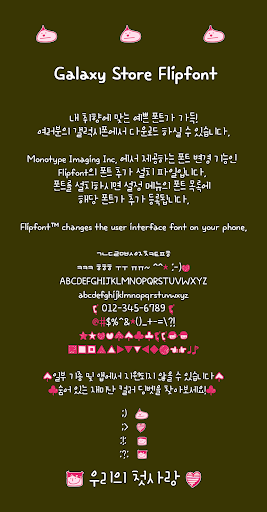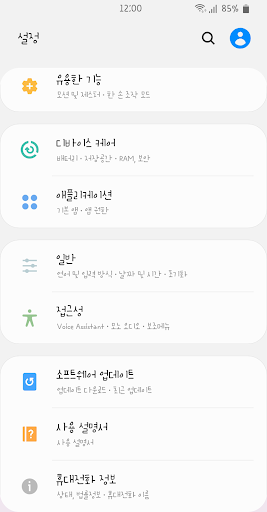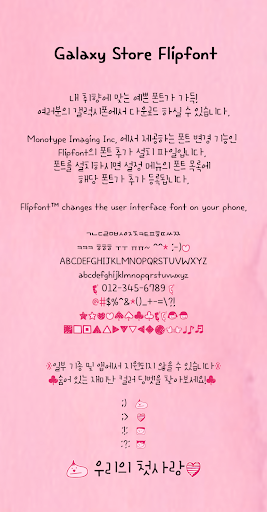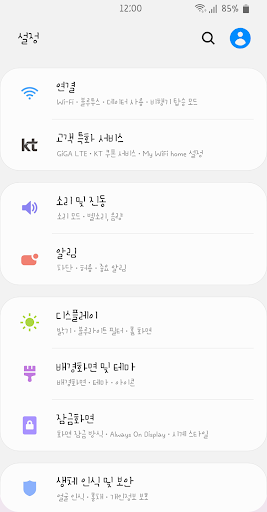
AhOurfirstlove
It's a font that feels like it's written down by hand, which is characterized by a natural shape.
The writing line is set to the middle and lower to add visually unique fun.
There's a special hidden dingbet hidden, so please look for it. :>